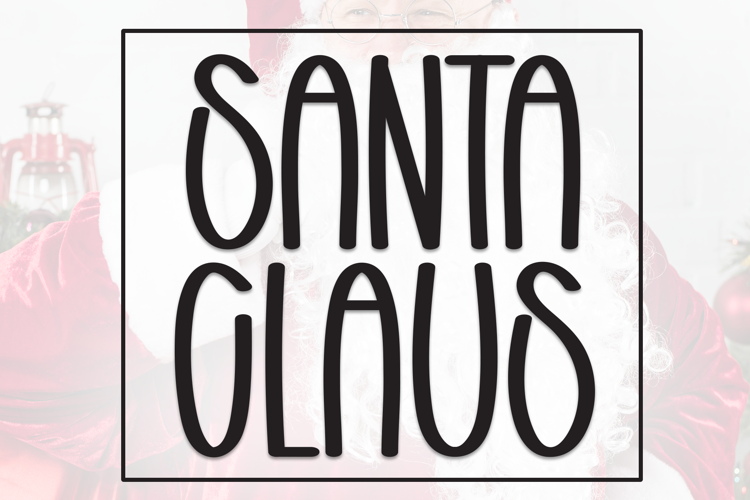
Santa Claus
Introducing, this is our newest product, we call this product Santa Claus,
It looks amazing with sweet touches and beautiful curves in each letter. Santa Claus fonts are perfect for: wedding invitations, fashion magazines, logos, signatures, photography, watermarks, wall displays, social media,